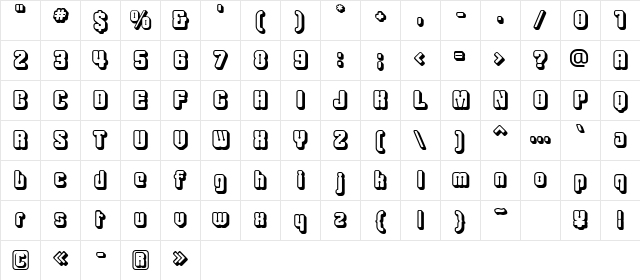
Clipershadow Regular
Design Context for Clipershadow Typeface
Clipershadow is built around its visual character rather than neutral utility — its distinctive forms are designed to make an impression at display sizes.